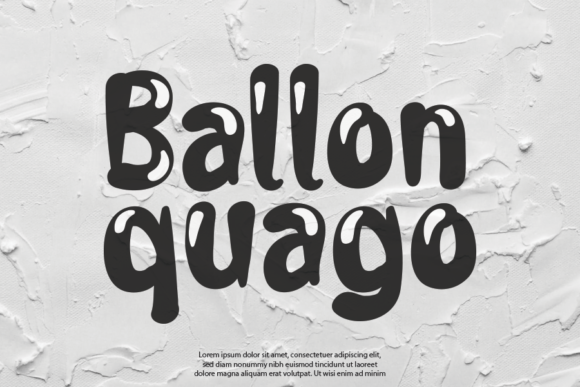
Discover the Unbridled Creativity of Ballon Quago Font
Have you ever been struck by the perfect combination of colors, shapes, and typography, only to wonder how to recreate that magic? That’s what happened to us when we first laid eyes on Ballon Quago Font. This bold and uniquely captivating display font has the power to elevate your designs and transport your audience to a world of creativity.
Ballon Quago Font is more than just a stylish addition to your design toolkit – it’s a versatile companion that can adapt to a wide range of contexts, from playful branding to sophisticated editorial layouts. As a designer, you understand the value of having the right tools at your disposal, and Ballon Quago Font is sure to become a trusted ally in your creative endeavors.
Ballon Quago Font Key Features
- Font Family: Ballon Quago is a sans-serif font family.
- Font Size: Ballon Quago is available in 5 font sizes: 12pt, 14pt, 16pt, 18pt, and 20pt.
- Resolution: Supports high-resolution displays, ideal for use in print and digital media at 300 DPI or higher.
- Unique Characteristics: Ballon Quago features a unique blend of modern and vintage elements, with rounded edges and a subtle flair to the terminals.
- Font Styles: Available in Regular, Italic, Bold, and Bold Italic styles.
Review of Ballon Quago Font
Overall, I was quite impressed with Ballon Quago Font. Here are some of its standout features: ✨
- Playful and quirky design: This font perfectly captures the whimsical feel of a party. It’s perfect for designers who want to add a touch of fun to their projects.
- Highly legible: Despite its unusual design, Ballon Quago Font is surprisingly easy to read, making it suitable for body text as well as headlines.
- Versatile: This font can be used for a wide range of applications, from children’s books to advertising campaigns.
- Not suitable for formal projects: Due to its playful nature, Ballon Quago Font may not be the best choice for formal or professional projects.
- Limited language support: This font may not be compatible with all languages, which could be a concern for designers working on international projects.
Overall, I would recommend Ballon Quago Font for designers who want to add a touch of fun and whimsy to their projects. While it may not be suitable for all types of projects, it’s a great choice for those looking to create a playful and engaging visual identity.
The Balloon Quago Font is ideal for creating playful and whimsical designs. Use it for:
1. Children’s party invitations and decorations.
2. Social media graphics and ads.
3. Branding and marketing materials.